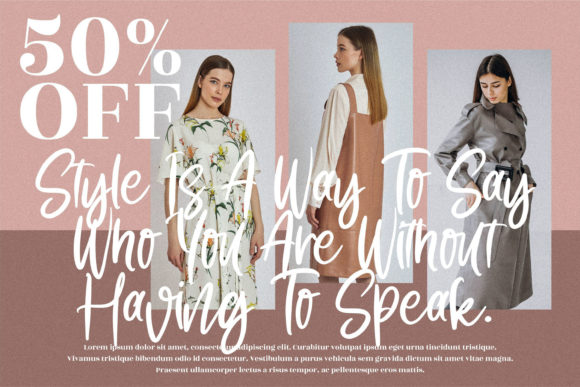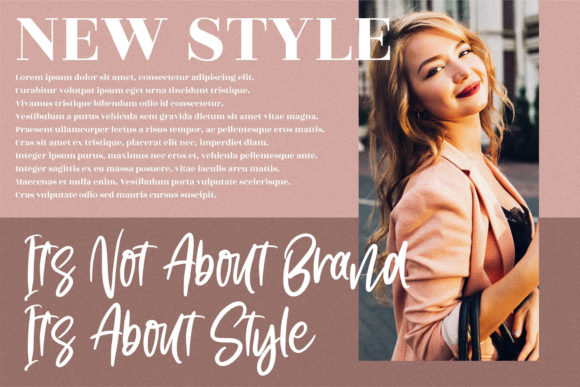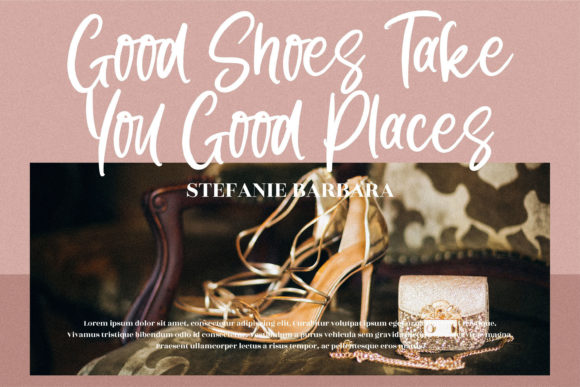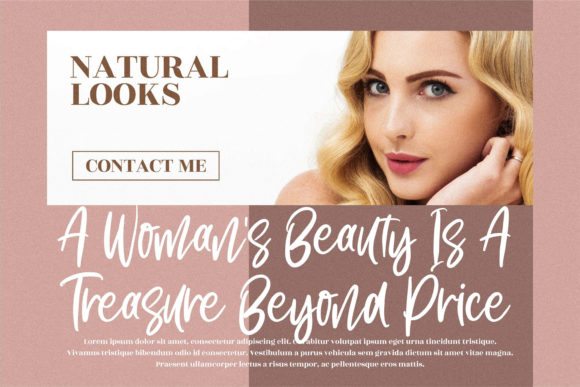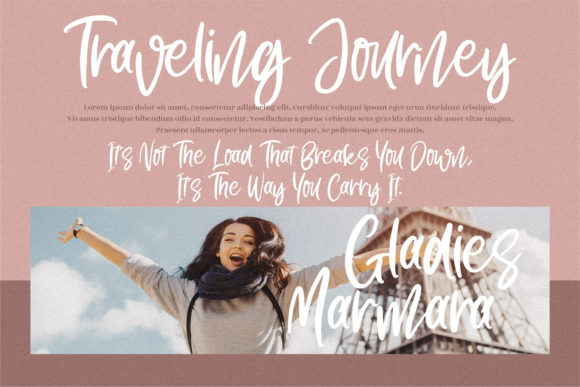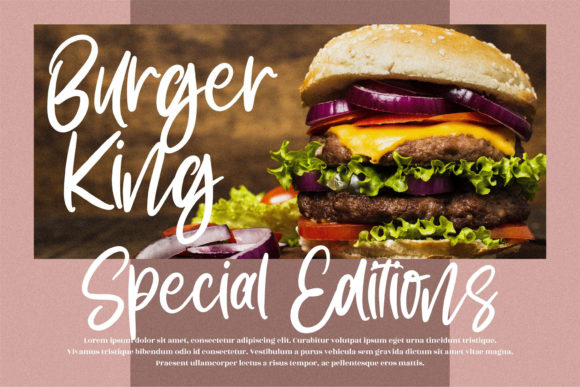
Introduction to Menttari Sparkle Font
There’s something magical about the moment when a design comes together, and all the elements harmonize in perfect sync. As a designer, you’ve probably experienced that rush of excitement when you finally find the perfect font to elevate your creative project. For me, it’s like stumbling upon a hidden treasure – a game-changer that takes my design to the next level.
That’s exactly what happened when I discovered the Menttari Sparkle Font. This chic, relaxed brushed script font is a true gem, exuding sophistication and elegance with every stroke. Its stylish alternates and ligatures make it the perfect match for any project, from wedding invitations to branding materials. Whether you’re working on a high-end design or a free download for a creative community, the Menttari Sparkle Font is sure to impress.
With its PUA encoding, accessing all the glyphs and swashes is a breeze, making it a valuable resource for designers who demand high-quality fonts with transparent backgrounds.
Key Features of Menttari Sparkle Font
- High-quality design resource ideal for creative projects requiring a touch of elegance and sophistication.
- Transparent background option for seamless integration with various design elements and backgrounds.
- Includes a range of sparkly and elegant characters, perfect for adding a touch of magic to any creative project.
- Supports a wide range of languages, including English, making it a versatile choice for designers worldwide.
Honest Review: Menttari Sparkle Font
I recently had the chance to work with the Menttari Sparkle Font, and I must say it’s been a delightful experience. This font has been a fantastic addition to my design resource collection.
- ✨ The font is incredibly versatile, suitable for a wide range of creative projects, from business logos to wedding invitations.
- ✨ The transparent background option is super handy for designers who need to layer their fonts seamlessly.
One minor limitation I encountered was the font’s limited character set. While it’s not a deal-breaker, it may require some additional font pairing for more complex designs.
- ⚠️ Limited character set may require additional font pairing.
Overall, I’m thoroughly impressed with the Menttari Sparkle Font. Its high quality and unique sparkle effect make it an excellent choice for any designer looking to add some extra flair to their creative project. I would highly recommend it to anyone looking for a reliable design resource.
The Menttari Sparkle Font is a high-quality design resource perfect for creative projects that require a touch of elegance and sophistication. With its transparent background and delicate sparkle effects, this font is sure to elevate your designs to the next level.
Using Menttari Sparkle Font in Design Applications
The Menttari Sparkle Font can be used in a variety of design applications, including:
- Canva: To add a touch of sparkle to your social media graphics, blog posts, and presentations.
- Adobe Photoshop/Illustrator: To create intricate designs and illustrations that require a high level of detail and sparkle.
- PowerPoint/Word: To add a touch of elegance to your presentations and documents.
The Menttari Sparkle Font is commonly used in a variety of design contexts, including:
- Birthday party decorations and invitations.
- Branding and marketing materials for luxury and high-end businesses.
Yes, the Menttari Sparkle Font has a transparent background, making it ideal for use on dark or textured backgrounds. This feature allows you to create a seamless and professional design for your creative project.
Q: Is the Menttari Sparkle Font suitable for high-quality print materials?
Yes, the Menttari Sparkle Font is designed to be a high-quality font, making it suitable for use in print materials such as business cards, brochures, and posters. The font’s crisp and clear design ensures that it will print well on a variety of paper types and sizes.